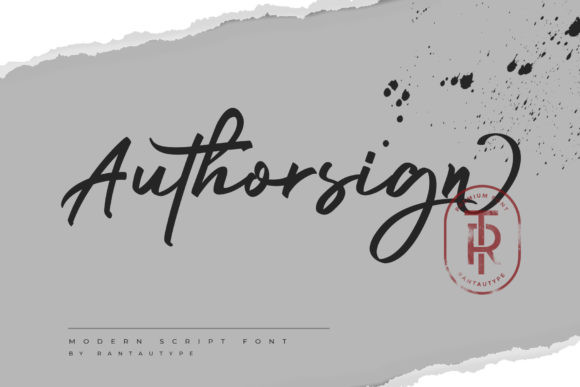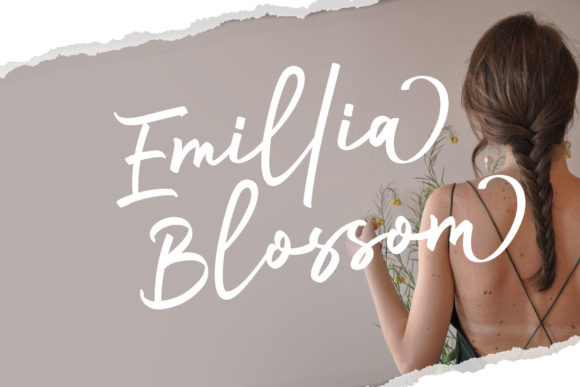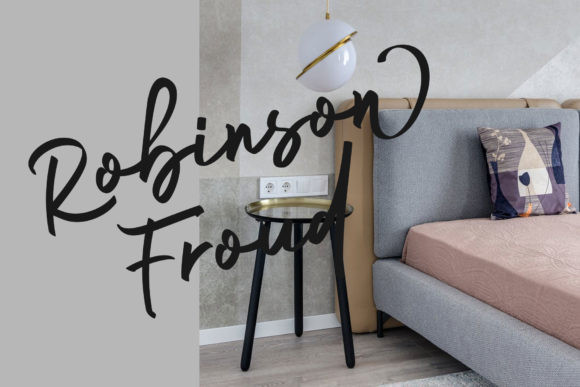
Authorsign Font
Authorsign FontAuthorsign is a stylish and incredibly elegant script font. It looks stunning on wedding invitations, thank you cards, quotes, greeting cards, logos, business cards and every other design which needs a handwritten touch.